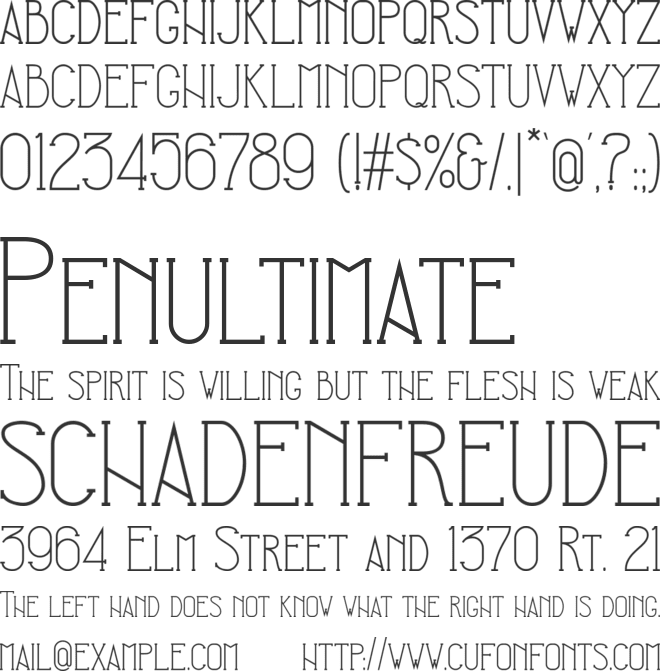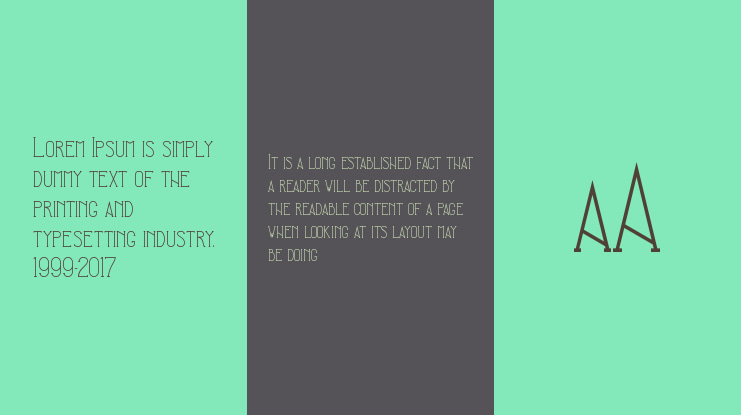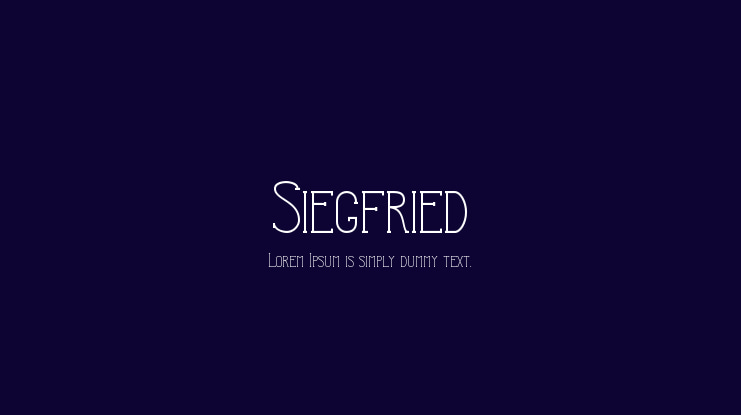
Siegfried Font
Benny Pudjiastanto
Siegfried is our first font. This low contrast slab serif font with royal-mythical vibe is more suitable as a display font, though it doesn't close possibility for other purpose.
Commercial use font containing multilingual glyphs, ligature, alternative & stylistic set glyphs